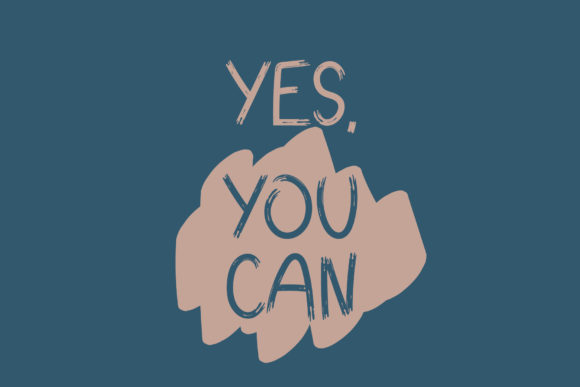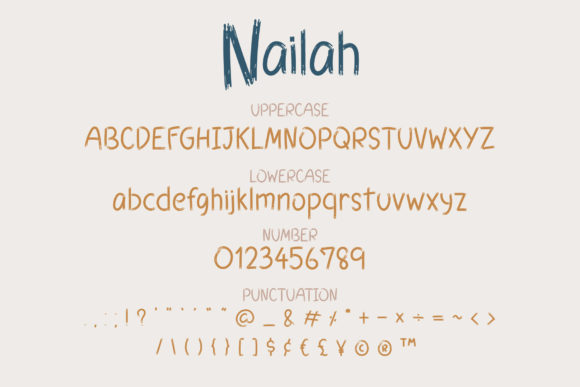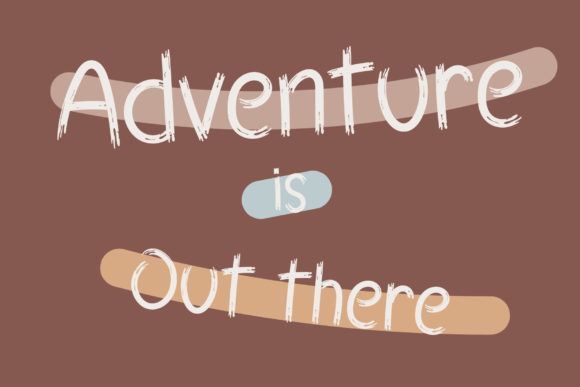
Introduction to Nailah Font
Have you ever stumbled upon the perfect font for a creative project, only to find yourself stuck in a sea of bland designs when it comes to executing your idea? I’m sure we’ve all been there – pouring over Pinterest boards, searching for the perfect calligraphy script or Instagram-worthy font, only to be left with a bunch of mediocre options.
But what if I told you there’s a font that can change all that? Enter the Nailah Font, a charming and casual handwritten font that’s perfect for designers and creatives looking to add a personal touch to their projects.
Key Features of Nailah Font
- High-quality, handcrafted design with a unique aesthetic, perfect for creative projects.
- Features a transparent background, allowing for easy customization and integration with any design resource.
- Includes a range of characters, including uppercase and lowercase letters, numbers, and special symbols, making it a versatile design resource.
- Designed with high resolution in mind, ensuring it looks great on both digital and print materials.
Honest Review: Nailah Font
I recently had the chance to work with the Nailah Font, a highly-regarded design resource that offers a wide range of creative possibilities. ✨ One of the standout features of this font is its versatility – it’s perfect for both digital and print projects, and its transparent background makes it incredibly easy to use.
From a design perspective, I was impressed with the high quality of the font. The lettering is clean, modern, and visually appealing, making it an excellent choice for any creative project. The font is also highly customizable, allowing you to tailor it to fit your specific needs.
- Highly versatile and suitable for a wide range of projects
- Transparent background for easy use
- High quality lettering and design
- Customizable to fit specific design needs
- May not be suitable for very small text sizes due to its modern design
- Limited options for bold or italic font styles
Overall, I’m impressed with the Nailah Font. While it may have some limitations, its high quality and versatility make it an excellent choice for any creative project. If you’re looking for a reliable and visually appealing font, I would definitely recommend giving it a try.
Experiment with different font sizes, colors, and combinations to find the perfect look for your design. Use the Nailah Font in conjunction with other design elements to create a cohesive and visually appealing design.
The Nailah Font is ideal for creative projects, such as social media graphics, flyers, posters, and presentations. Its high-quality design and transparent background feature make it a valuable resource for designers and non-designers alike.
Compared to Nailah Font, Alegreya Sans has a more minimalist design, making it suitable for designs that require simplicity and elegance. It is also highly legible, making it a great choice for body text.
Compared to Nailah Font, Montserrat has a more geometric design, making it suitable for designs that require a bold and modern look. It is also highly versatile, making it a great choice for a wide range of design projects.